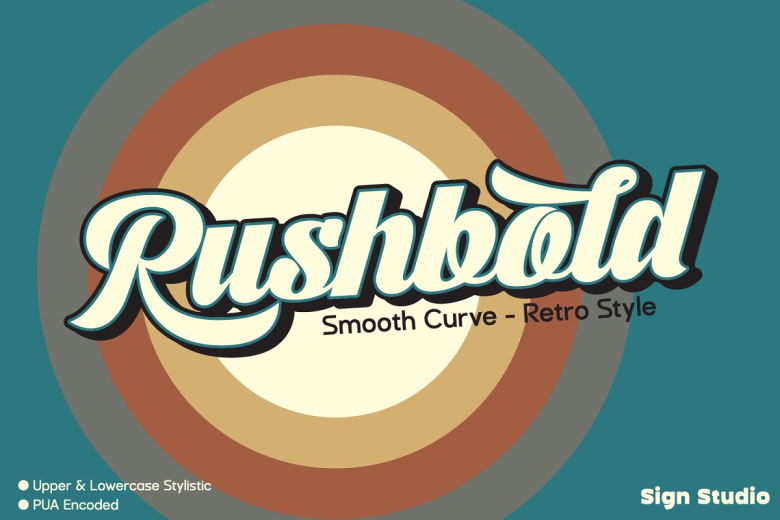
Rushbold Font
Introducing a gorgeous and bold retro script font called Rushbold. I inspired by the old brush style that bad printer impact when print it, The typeface itself with fat body,, this will really help you bake your heart or brand project to stand out as warm retro vintage classic playful feel.
Including 2 Stylistic Sets (Upper & Lowercase) and many other alternate Characters. Every section has become very smooth so, that in big prints you will not see any line of the separation.
Rushbold Retro Script Font